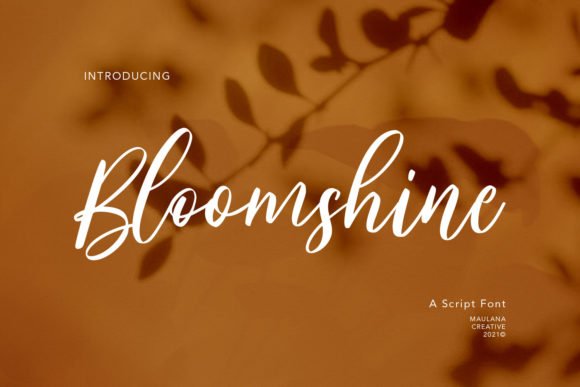
There’s nothing quite like the feeling of bringing a design idea to life. You’ve spent hours brainstorming, sketching, and refining your concept, and finally, it’s time to start building. The blank page stares back at you, and your mind starts racing with possibilities. This is where the right font can make all the difference – and that’s exactly where the Bloomshine Font comes in.
This stylish and casual handwritten font is the perfect match for any project that needs a friendly yet elegant touch. With its feminine strokes and playful character, Bloomshine Font adds a unique touch to your designs that’s hard to find elsewhere. Whether you’re working on a wedding invitation, a blog post, or a social media graphic, this font is sure to bring your creations to life in a beautiful way.
Bloomshine Font Key Features
- Font Family: Bloomshine is a beautiful, modern script font designed to evoke a sense of elegance and sophistication.
- Size: Bloomshine font comes in 6 font weights (Thin, Light, Regular, Medium, Bold, Black) to cater to various design needs.
- Unique Characteristics: Features a unique blend of flowing lines, elegant curves, and subtle flourishes, making it perfect for creating eye-catching headlines and titles.
- Language Support: Supports a wide range of languages, including Latin, Cyrillic, and Greek, making it an ideal choice for global branding and design projects.
Bloomshine Font Review
Overall, I’m quite impressed with Bloomshine Font. It’s a beautiful, modern script font that’s perfect for adding a touch of elegance to your designs. ✨ The delicate, flowing lines and subtle imperfections give it a hand-crafted feel that’s hard to replicate with more traditional fonts.
Here are some of the things I like about Bloomshine Font:
- ✨ Its versatility – it works well for both display and body text.
- ✨ The variety of styles available, from casual to formal.
- ✨ The numerous language support options.
- ⚠️ The font may not be suitable for very small or large text sizes, as the lines can become distorted.
- ⚠️ Some users may find the font’s spacing and kerning to be a bit off, particularly in certain word combinations.
Despite these limitations, I think Bloomshine Font is a great addition to any designer’s toolkit. It’s a unique and beautiful font that can add a lot of character to your designs. With a little careful planning and experimentation, you can get the most out of this lovely font.
The Bloomshine font is ideal for:
- Floral-themed designs and illustrations
- Editorial and fashion designs
Remember to adjust the font size and style to achieve the desired effect.